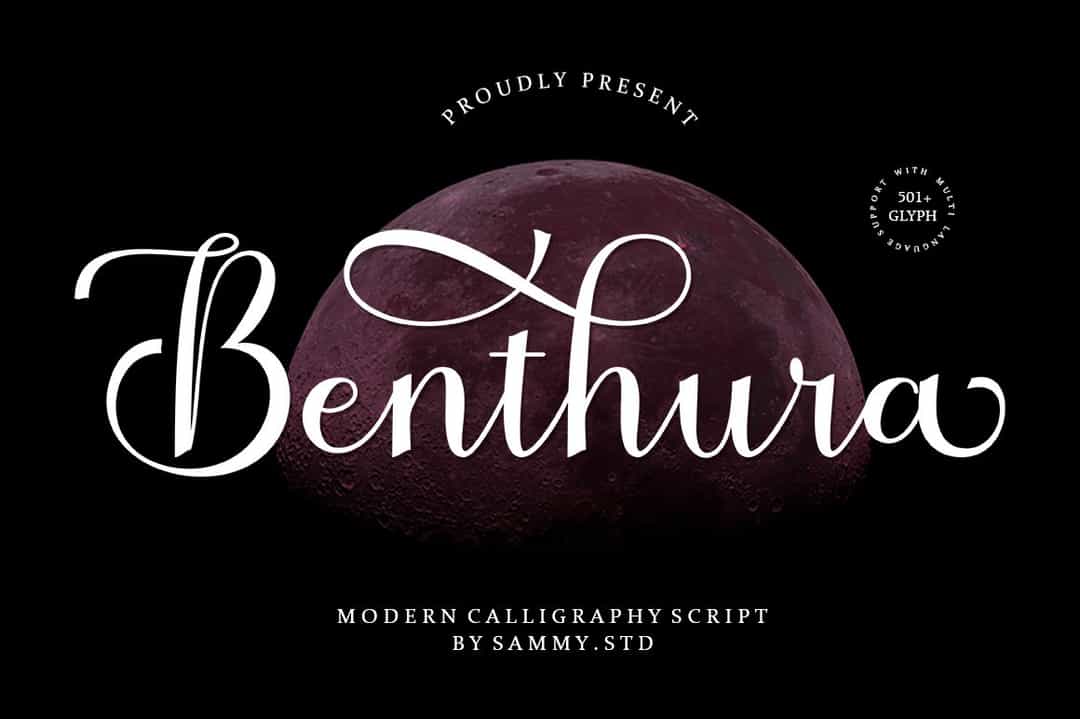
Benthura is a modern calligraphy font with bold, elegant & fun vintage script elements. Perfect for wedding invitations, logos, letterhead, T-shirts & news posters/badges; Benthura has over 279 glyphs including characters like swashes ligatures as well as multilingual support!